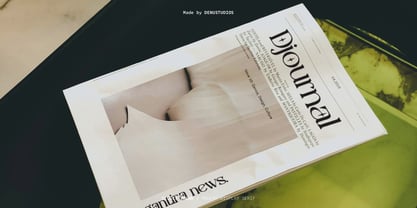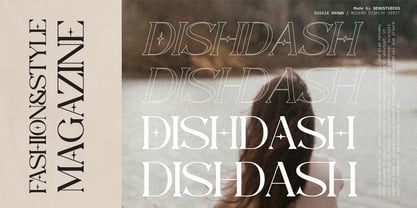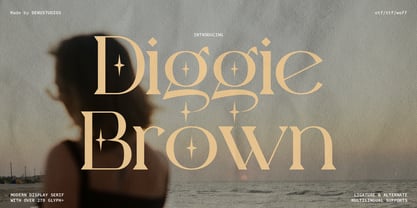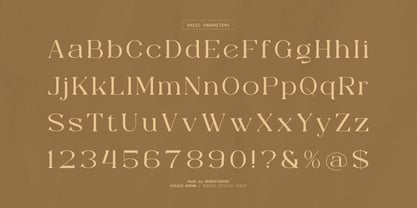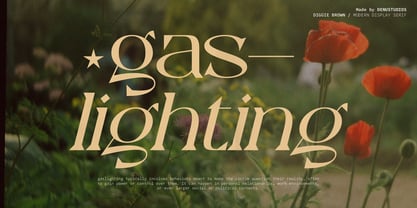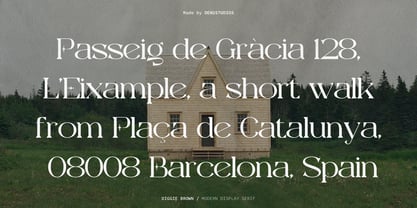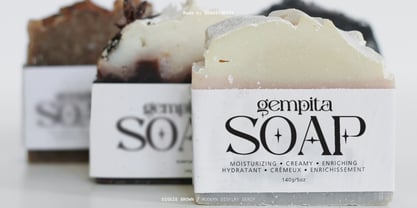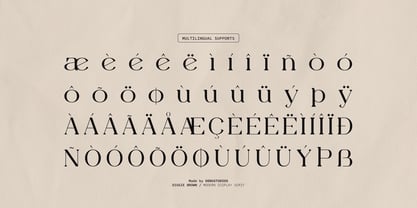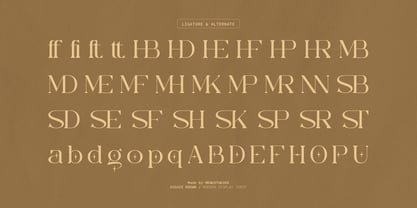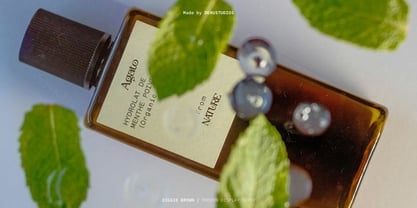
Diggie Brown
por Denustudio
La familia tipográfica Diggie Brown fue diseñada por Dede Nugraha y publicada por Denustudio. Diggie Brown contiene 2 estilos y opciones de paquete familiar. Más información sobre esta familia
Diggie Brown | Modern Display Serif, from Denustudios, suitable for any projects such as: logos, branding projects, homeware designs, product packaging, mugs, quotes, posters, shopping bags, t-shirts, book covers, name card, invitation cards, greeting cards, label, photography, watermark, special events, and all your other lovely projects that need Modern Display Serif a taste.